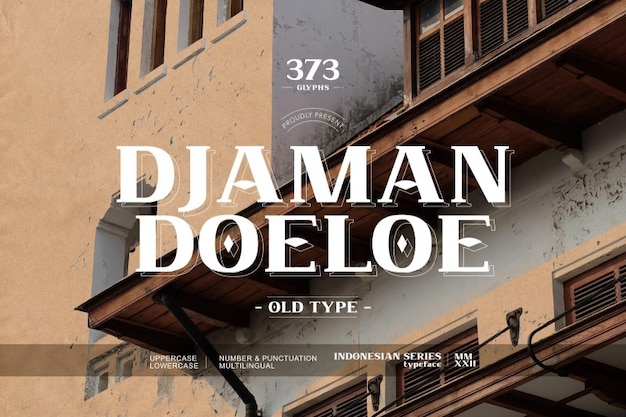
Djaman Doeloe Font
Djaman Doeloe font takes you on a visual journey through vintage Indonesian charm. With an old-world essence, it captures the intricate details of Asian heritage. This font is a nostalgic tribute to days gone by, ideal for adding a touch of Indonesian history to your designs. Whether for posters, branding, or art projects, Djaman Doeloe evokes a sense of timelessness and cultural richness.